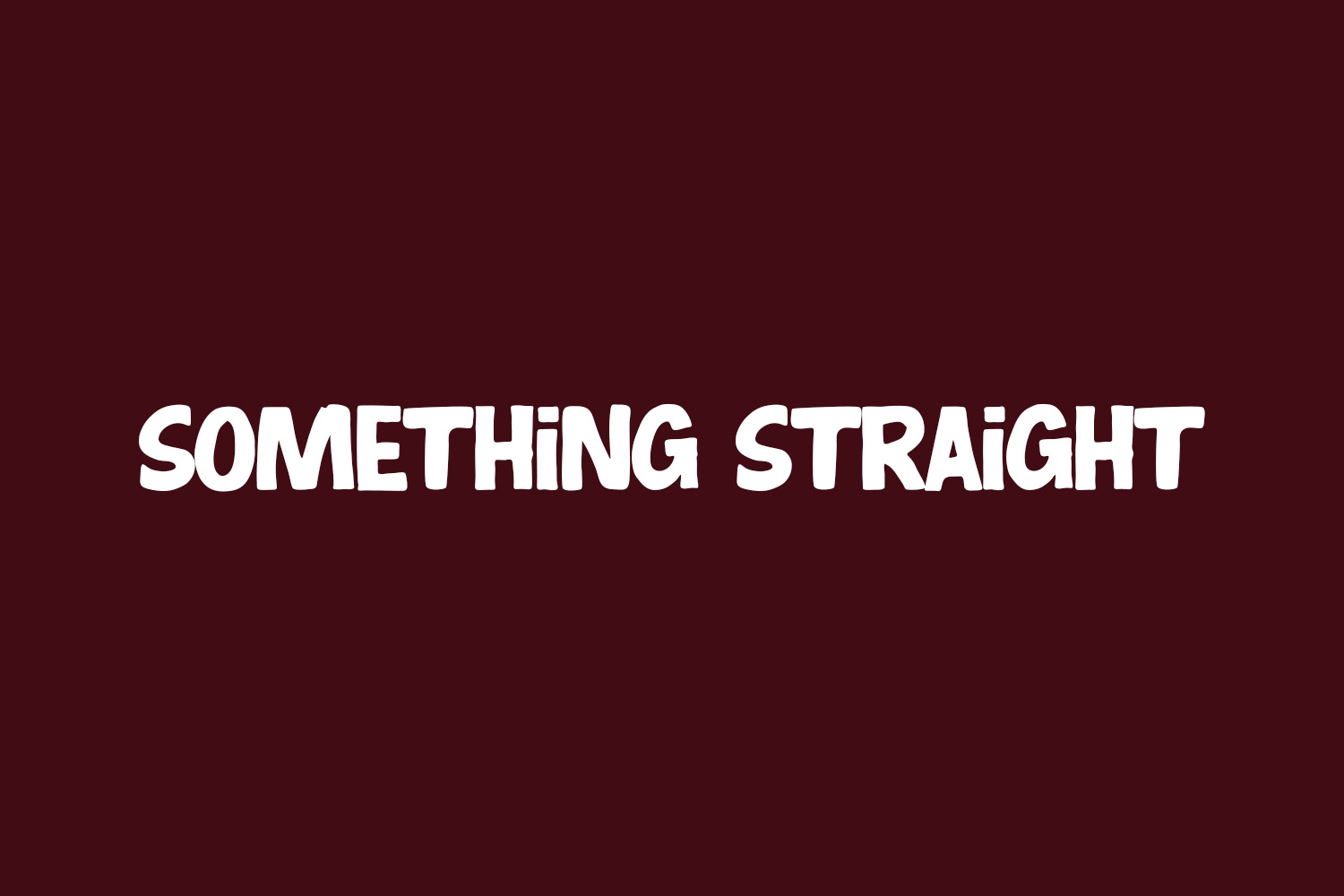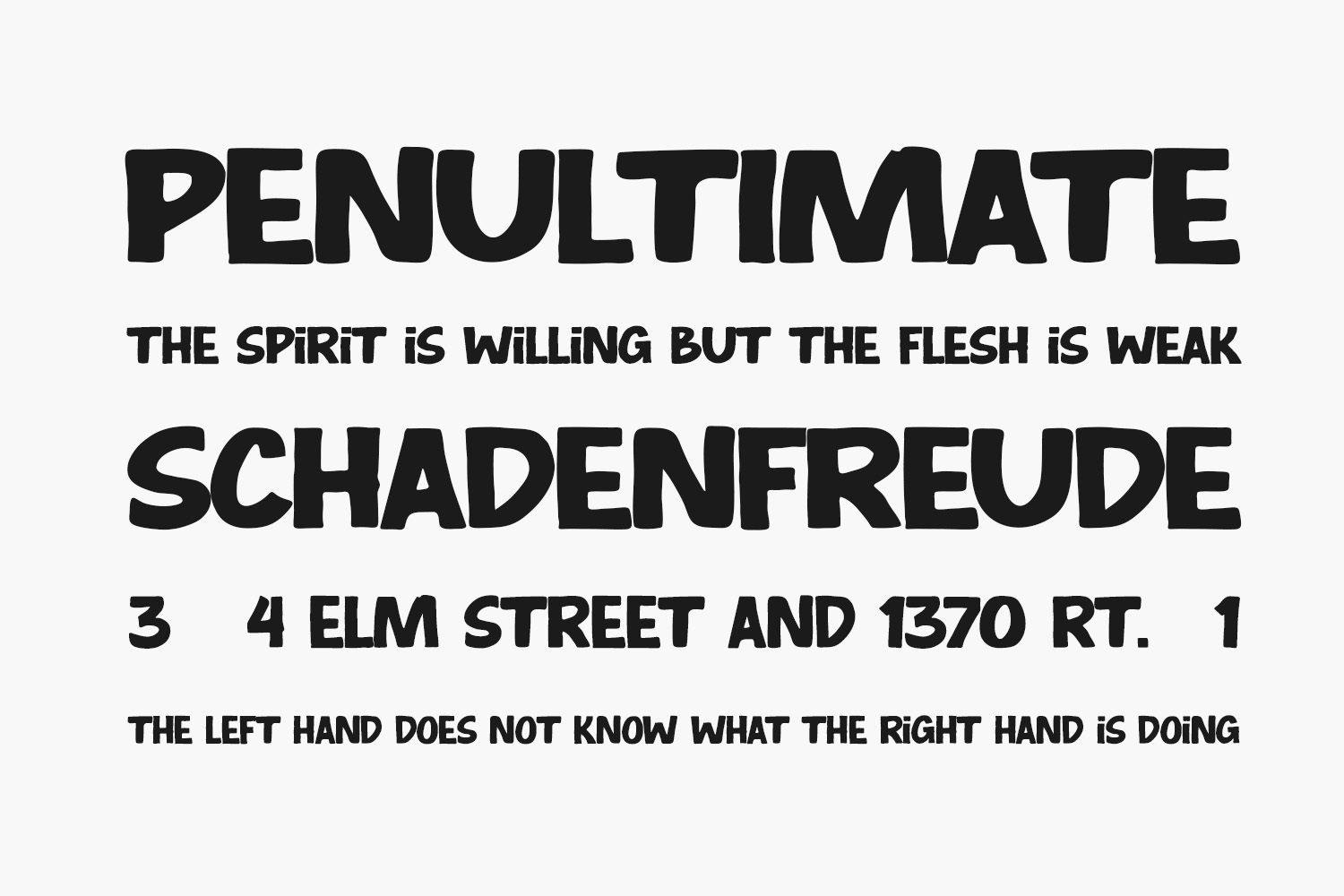
Meet Something Straight Free Font, a delightful and boldly lettered display font. Whether you’re crafting designs for cartoons, children’s games, or any project in need of a charming touch, this font proves to be an exceptional choice that adds a touch of magic to your creations. Something Straight Free Font is a demo and free for personal use only. Please purchase the full version for commercial use.
Designed by Gassstype